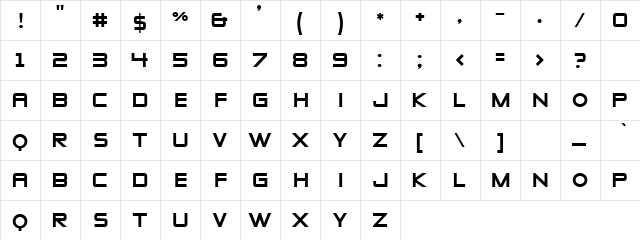
Clockwise Regular
Design Context for Clockwise Typeface
Clockwise is a composed and adaptable typeface that performs quietly and consistently across a wide range of design contexts.